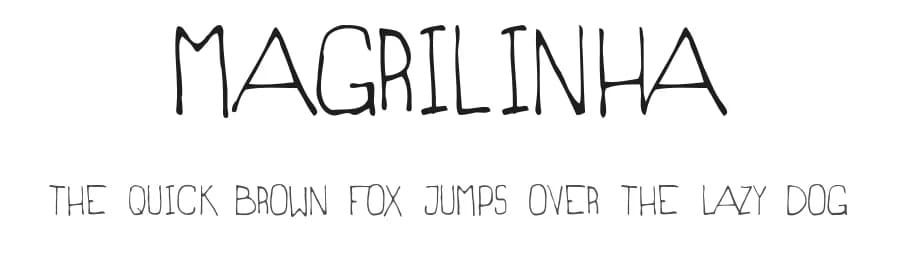
About Magrilinha Font
Magrilinha is a script & handwritten font designed by Daniel Maciel. It includes 125 glyphs, a thin weight, TTF (TrueType) format, and 137 languages. Magrilinha is free to download; check the license details on this page before commercial use. Script & handwritten fonts like Magrilinha work best for wedding invitations, greeting cards, signatures, and elegant branding.
- Ultra-light, Elegant, Flowing, Script
Magrilinha Font is a script font that shines as a display or heading face. Pair it with a clean sans-serif or serif font for body text β the contrast creates a clear hierarchy while the two styles stay balanced and easy to read.
Magrilinha Font
Magrilinha Font is a script handwritten typeface by Daniel Maciel, ideal for logos, invitations, branding, and creative projects.